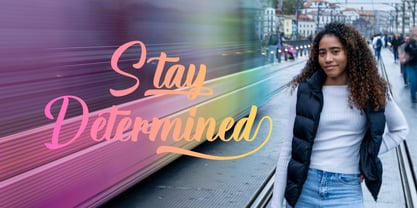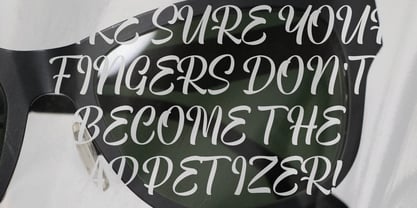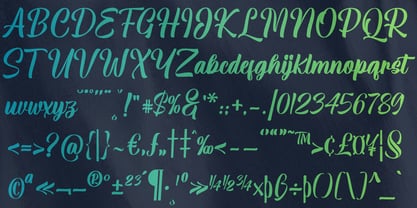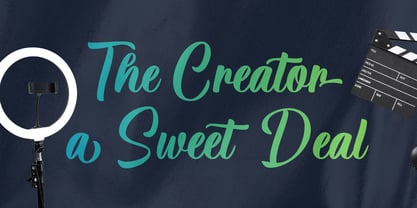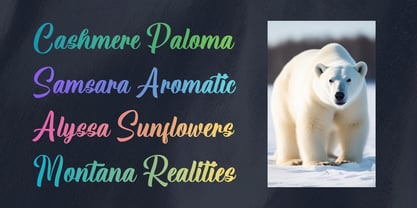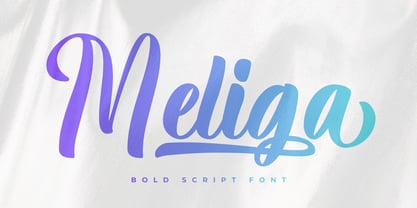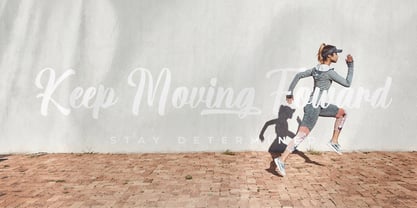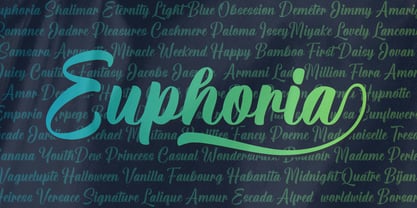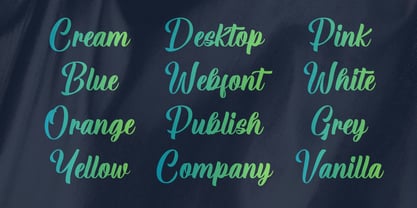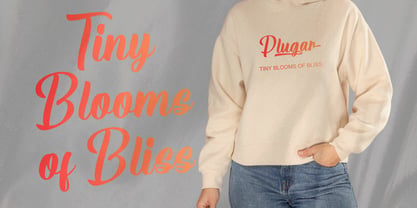
Meliga
by Gatype
The Meliga Font Family was designed by khaidir and published by Gatype. Meliga contains 1 styles. More about this family
Introducing Meliga, a modern classy script font with bold character and smooth circular flow. Designed to bring elegance and energy into your typography, Meliga makes it easy to achieve a natural hand-lettered look in seconds. Created by Gatype, this font is crafted to help designers effortlessly combine and explore styles, giving more flexibility in creative compositions. Its strong strokes paired with fluid movement make it stand out in any visual project. Meliga Bold Script comes with a bold, smooth, and expressive handwritten style—perfect for logotypes, branding, packaging, merchandise, labels, and many other creative applications. FEATURES : Complete Uppercase & Lowercase Characters Numbers & Symbols Included Punctuation Set Multilingual Support PUA Encoded (easy glyph access) OpenType Features Enjoy!
Designers: khaidir
Foundry: Gatype